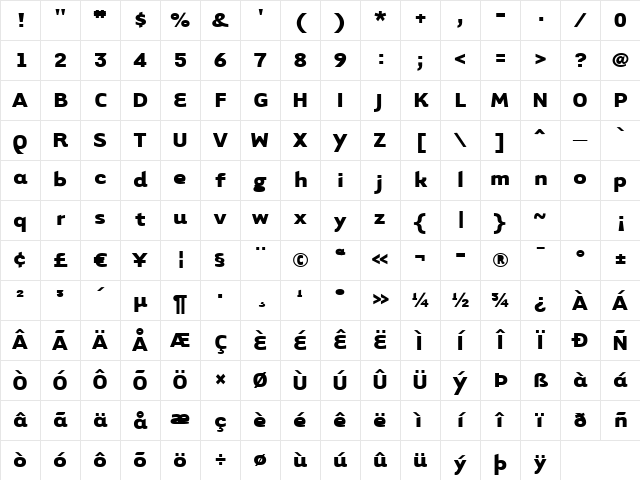
TarzanaWide Bold
Design Context for TarzanaWide
TarzanaWide is a composed and adaptable typeface that performs quietly and consistently across a wide range of design contexts. Its bold stroke weight gives it real presence on the page.